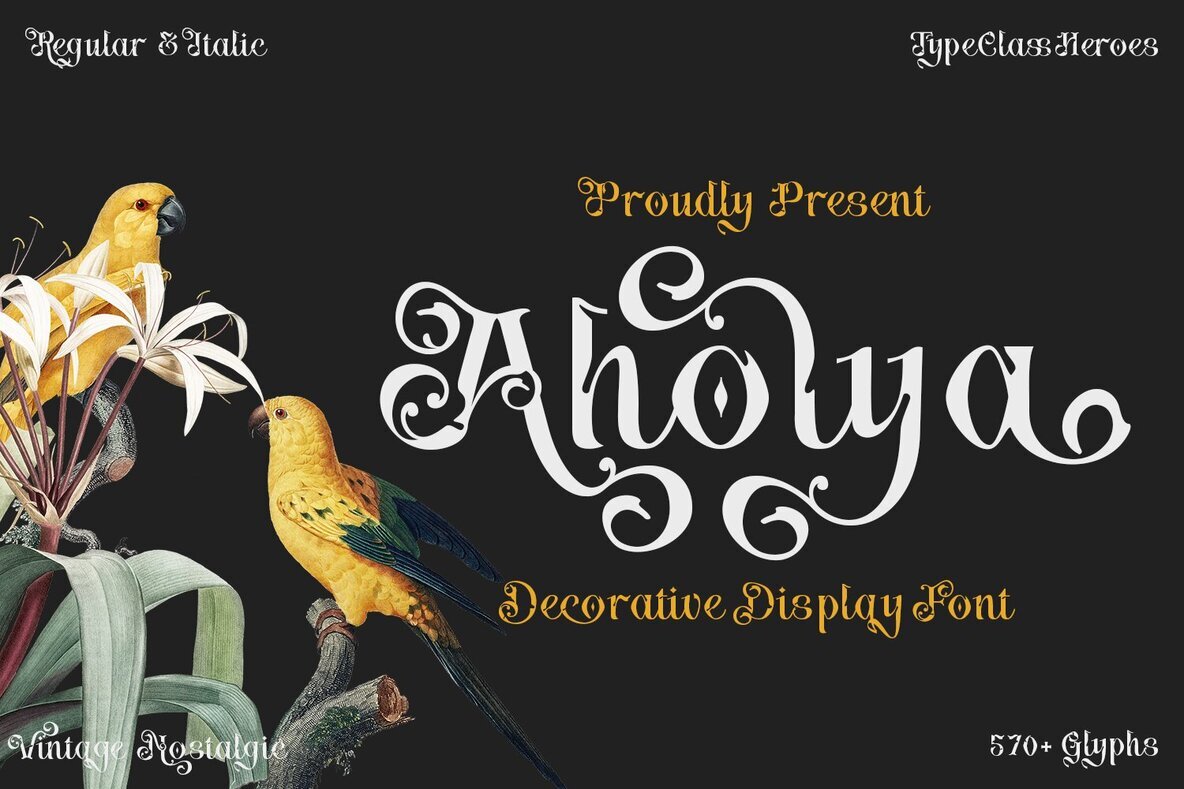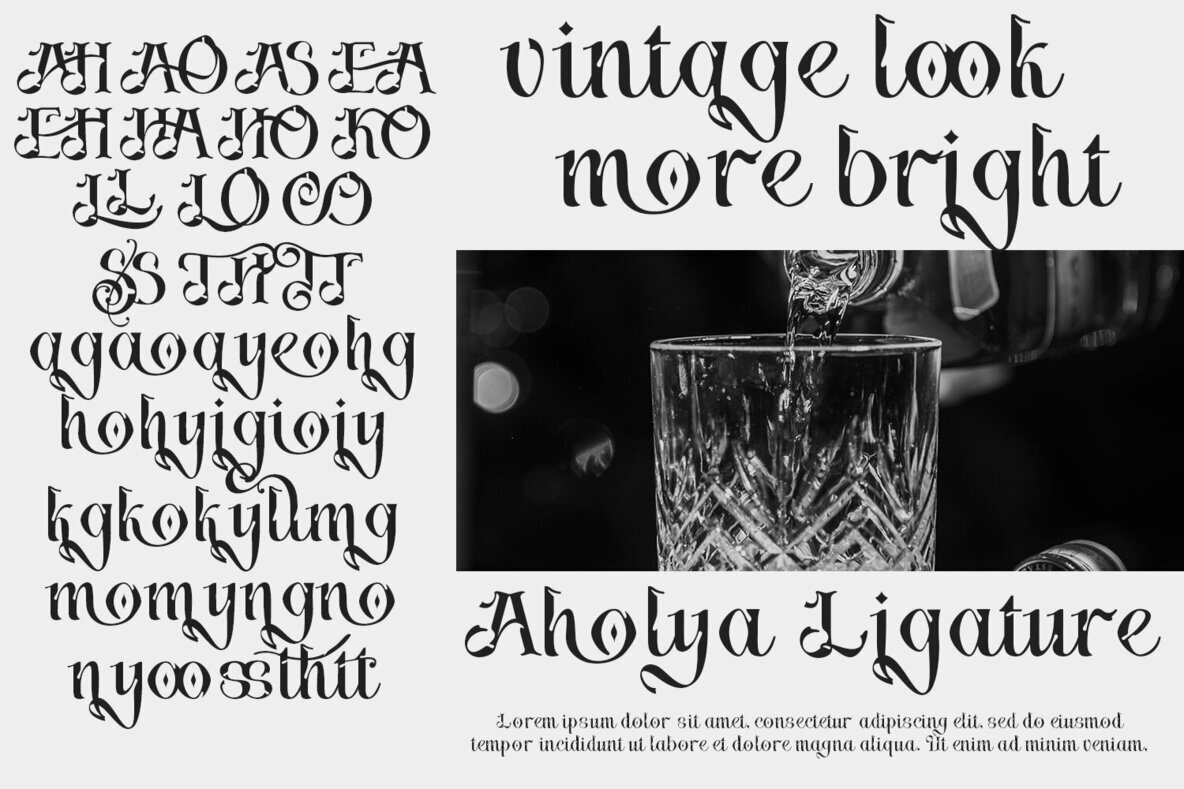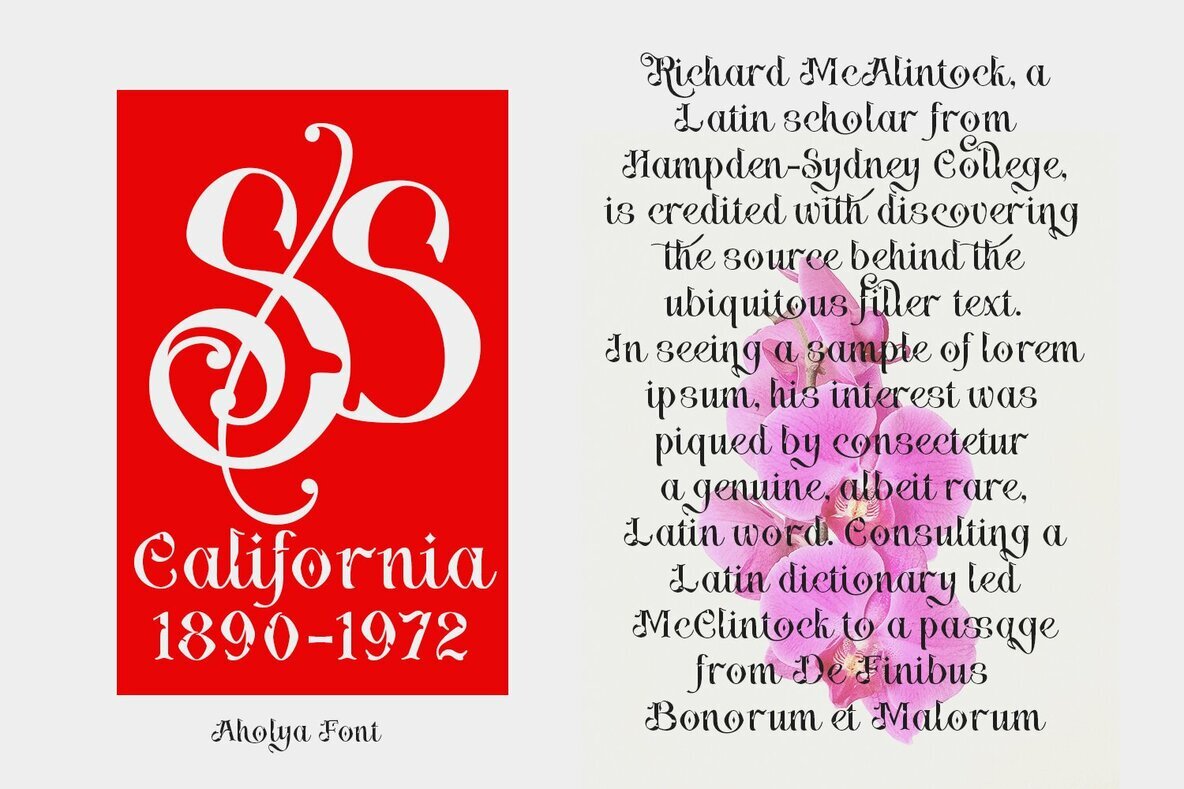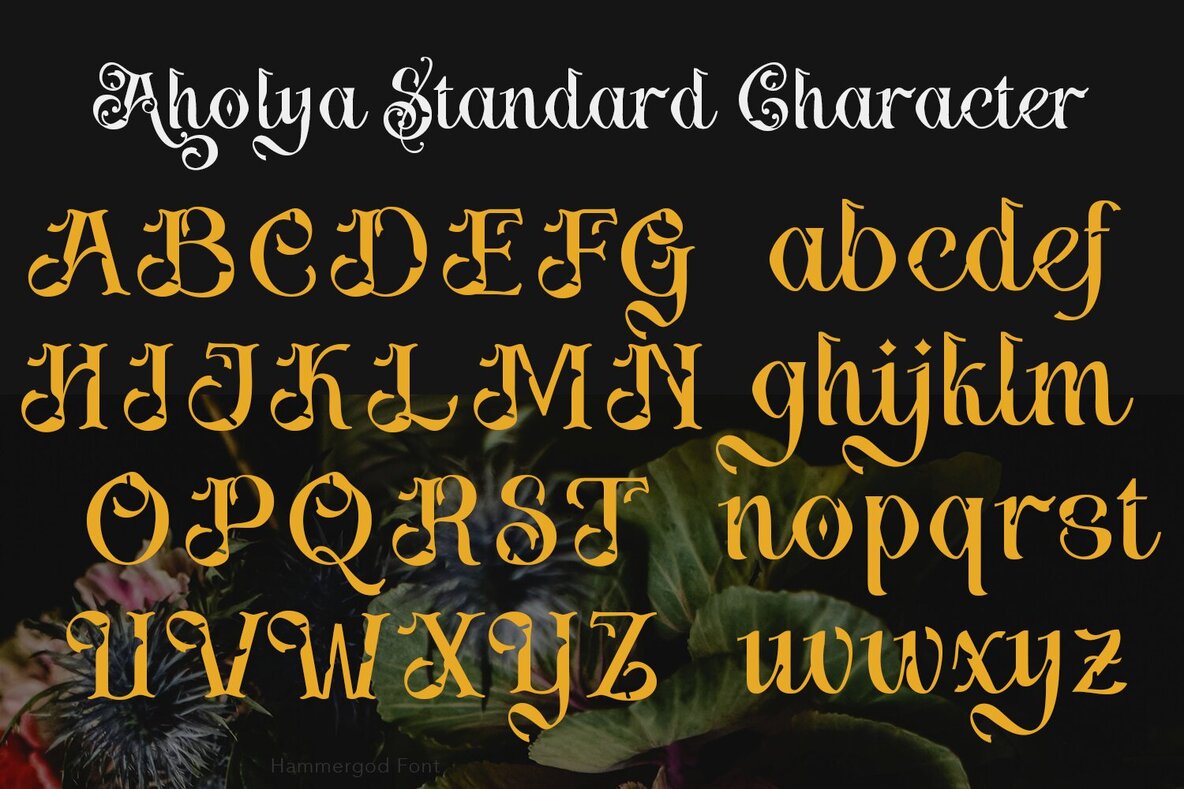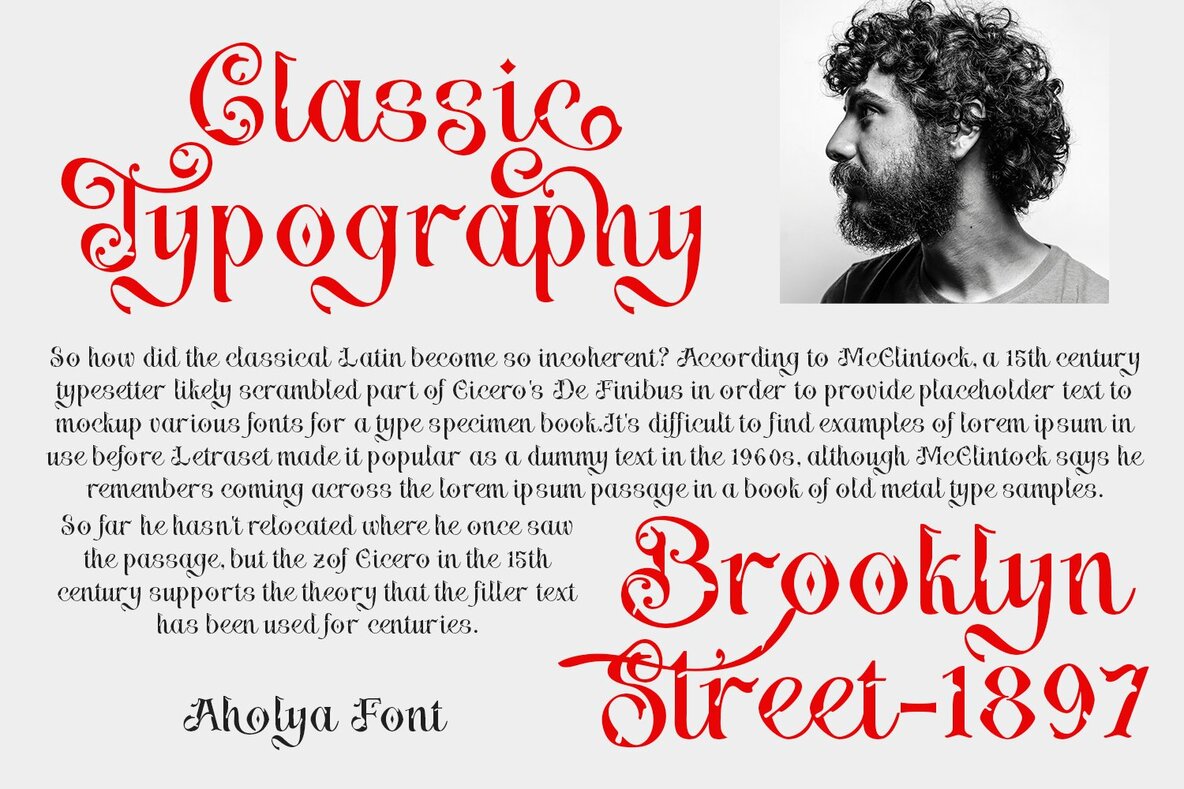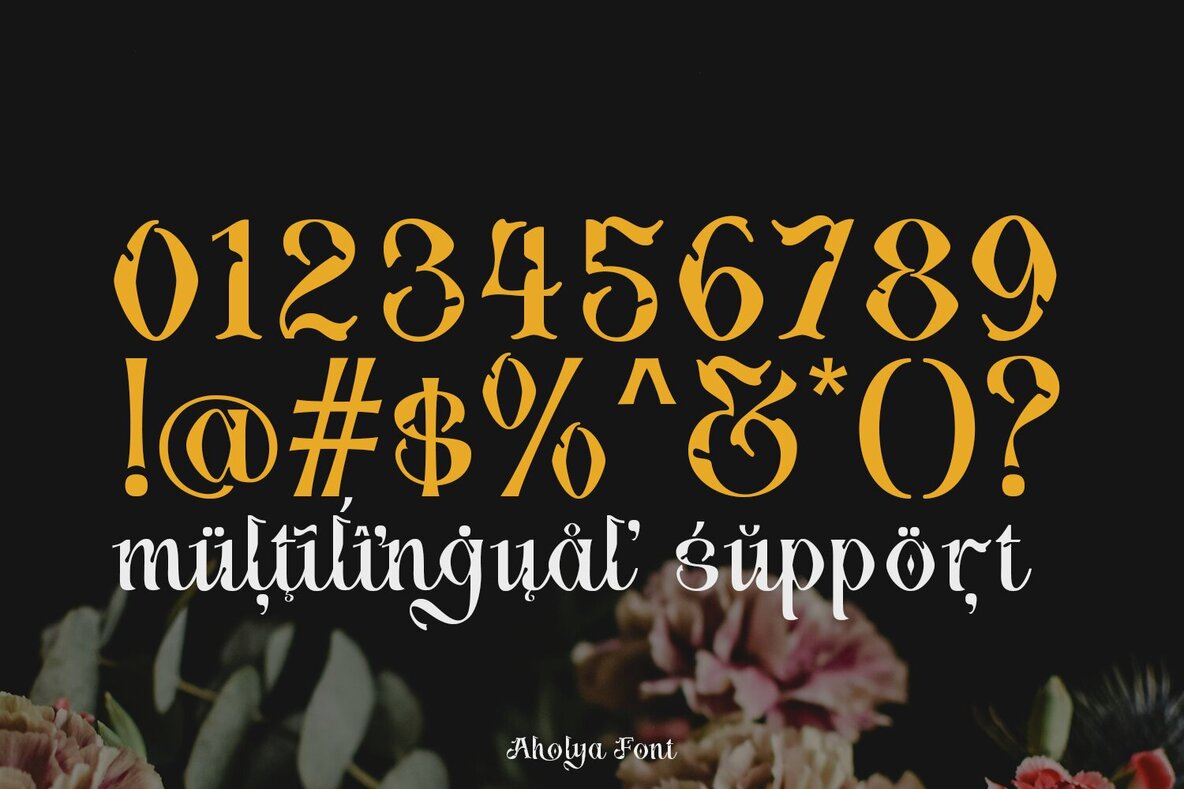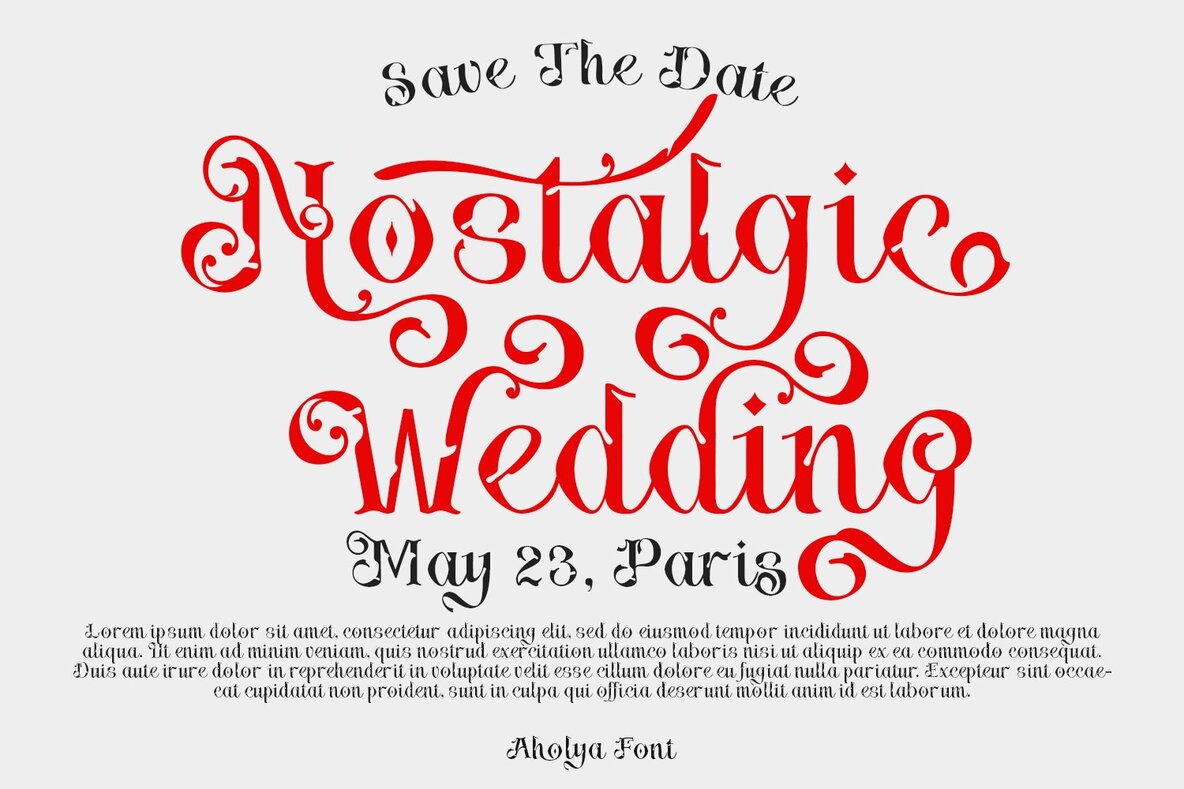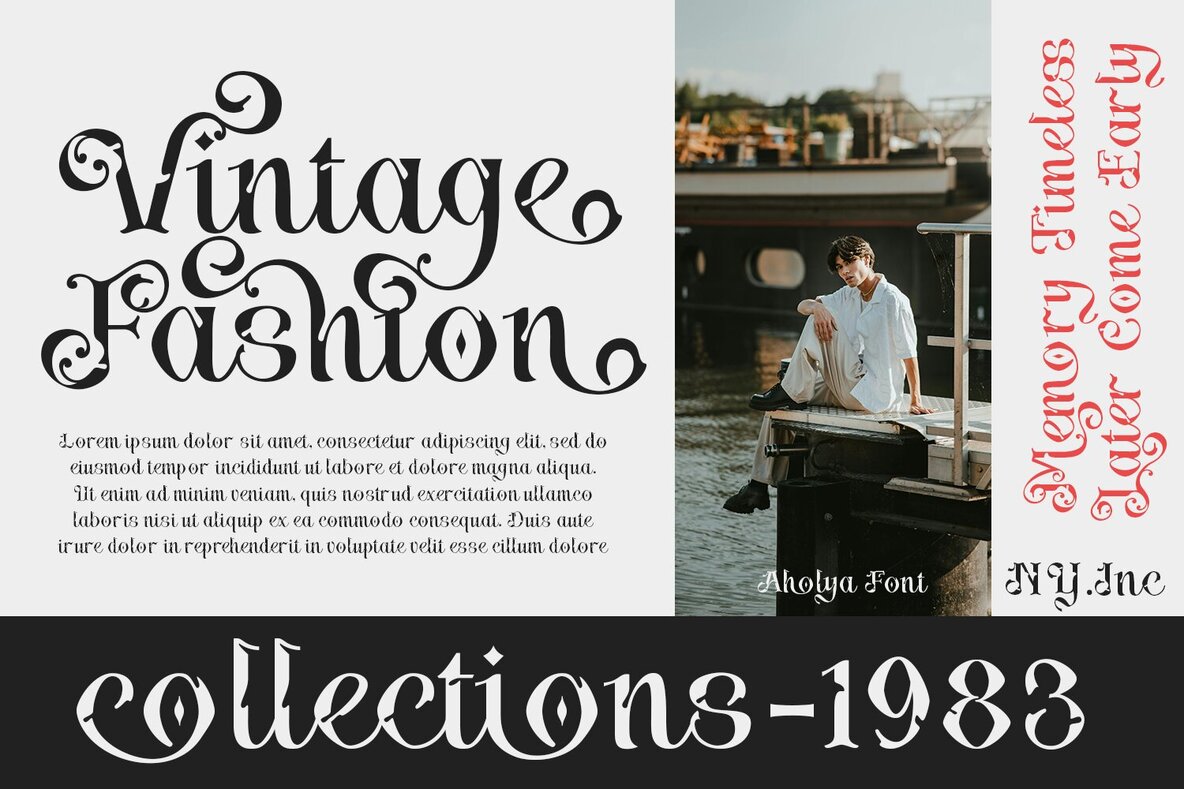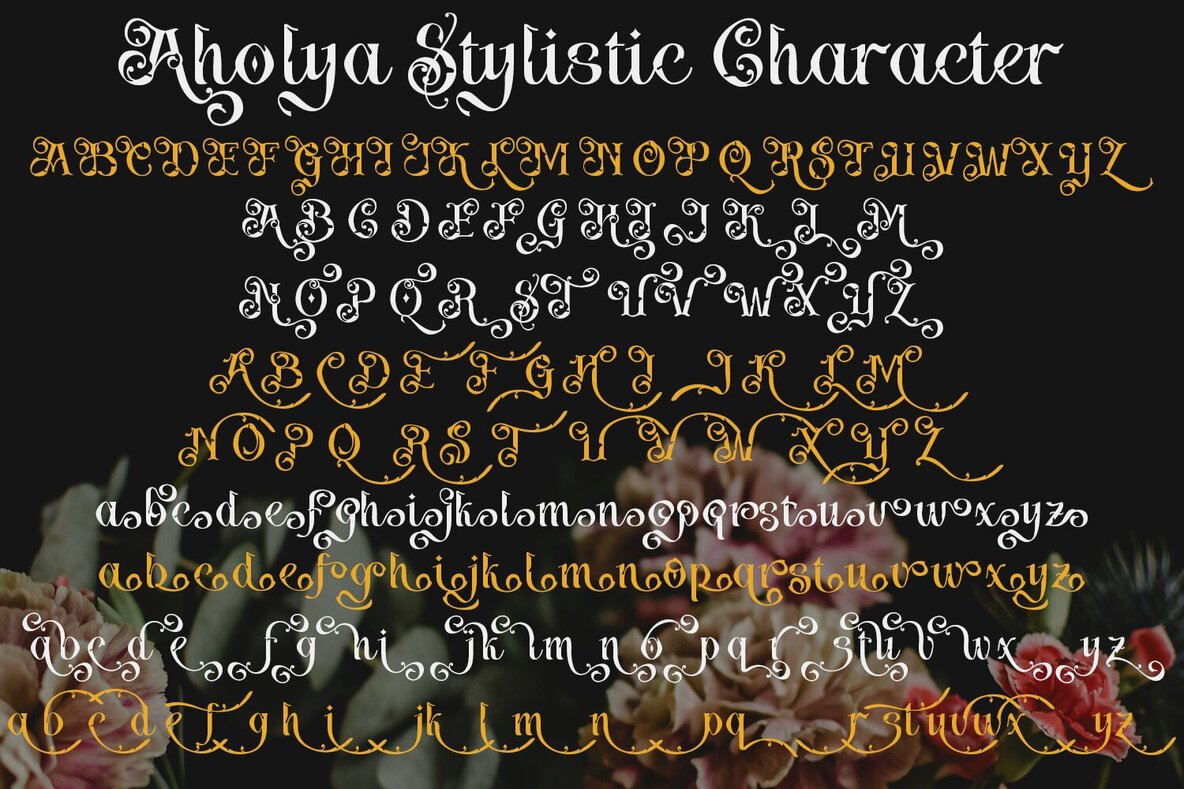
Aholya Font
Aholya by Type Class Heroes combines bold, classic styling with a modern, elegant flair. This versatile font lends a romantic touch to your designs while maintaining clarity and readability. Each glyph is crafted with precision, resulting in beautifully simple word formations. Its classic charm makes Aholya perfect for a variety of applications.Aholya Font: Timeless Elegance in Typography